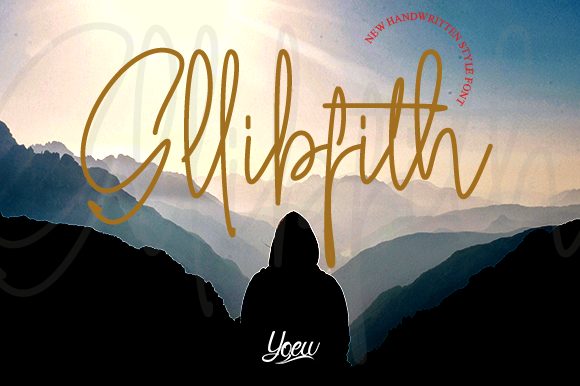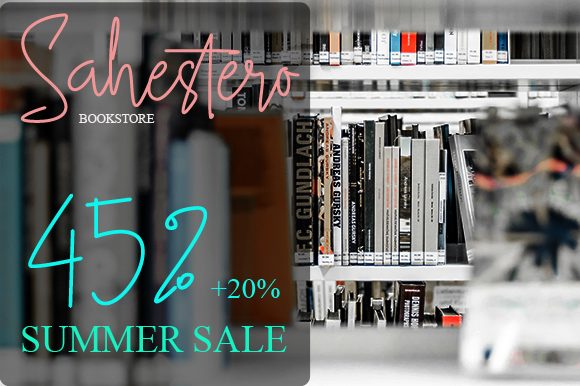
Script Fonts Gllibfith Font 0 153 FacebookTwitterPinterestWhatsApp Gllibfith Font Poster 2 About Gllibfith Font Gllibfith is a casual and cute handwritten font. Clean and a little bit quirky, this font is the perfect fit for all of your logos, branding, social media, and crafty DIY projects. DOWNLOAD NOW